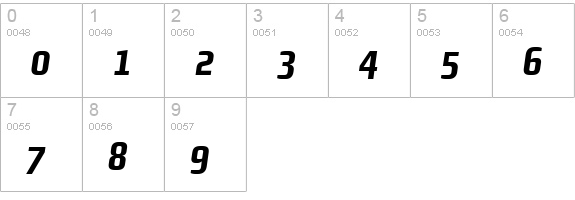
MorganSansCond Bold ItalicExpert is a strong, high-contrast variant in the MorganSansCond typeface family \xE2\x80\x94 well suited to headlines, attention-grabbing titles, and strong calls-to-action.
MorganSansCond Bold ItalicExpert font exudes confidence and sophistication with its sleek and modern design. The bold yet elegant letterforms make a bold statement while maintaining a sense of refinement. Perfect for adding a touch of flair to your designs, this font is ideal for headlines, titles, and other prominent text elements. And the best part? MorganSansCond Bold ItalicExpert font is available for free download at FontsMarket.com. Whether you're working on a professional project or a personal creative endeavor, this versatile font is sure to elevate your designs to the next level. Don't miss out on the opportunity to enhance your typography with this stunning typeface that effortlessly blends style and substance. Download MorganSansCond Bold ItalicExpert font today and let your creativity soar.